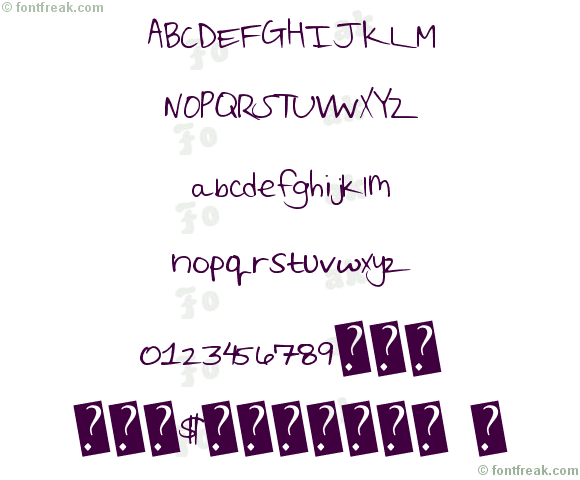
ReaganaldScript
About ReaganaldScript
ReaganaldScript by Xerographer Fonts is a charming handwritten script font that exudes elegance and personality. Released in 2012, this font features smooth, flowing strokes that create a warm and inviting aesthetic. The stroke weight varies subtly, adding a touch of dynamism to the characters while maintaining a cohesive look. The delicate contrast between thick and thin lines enhances its legibility, making it suitable for various design applications. The spacing between characters is well-considered, contributing to its overall readability, and the slightly irregular shapes lend an organic, personal touch that mimics natural handwriting.
This versatile font is perfect for a wide range of use cases. It shines in wedding invitations, where its romantic feel can add a unique flair to the announcements. Additionally, ReaganaldScript is ideal for restaurant menus, giving an artisanal touch that can make dishes feel more special. It works beautifully on movie posters, especially for indie films, where a personal narrative is key. Small business owners will find it advantageous for branding materials, as it conveys authenticity and approachability. Content creators can also leverage this font for social media graphics, ensuring their posts stand out in a crowded feed.
Targeted towards graphic designers, small business owners, and content creators, ReaganaldScript allows for creativity and expression in various projects. Its distinctive style can elevate any design, making it a favored choice among those looking to make a statement.